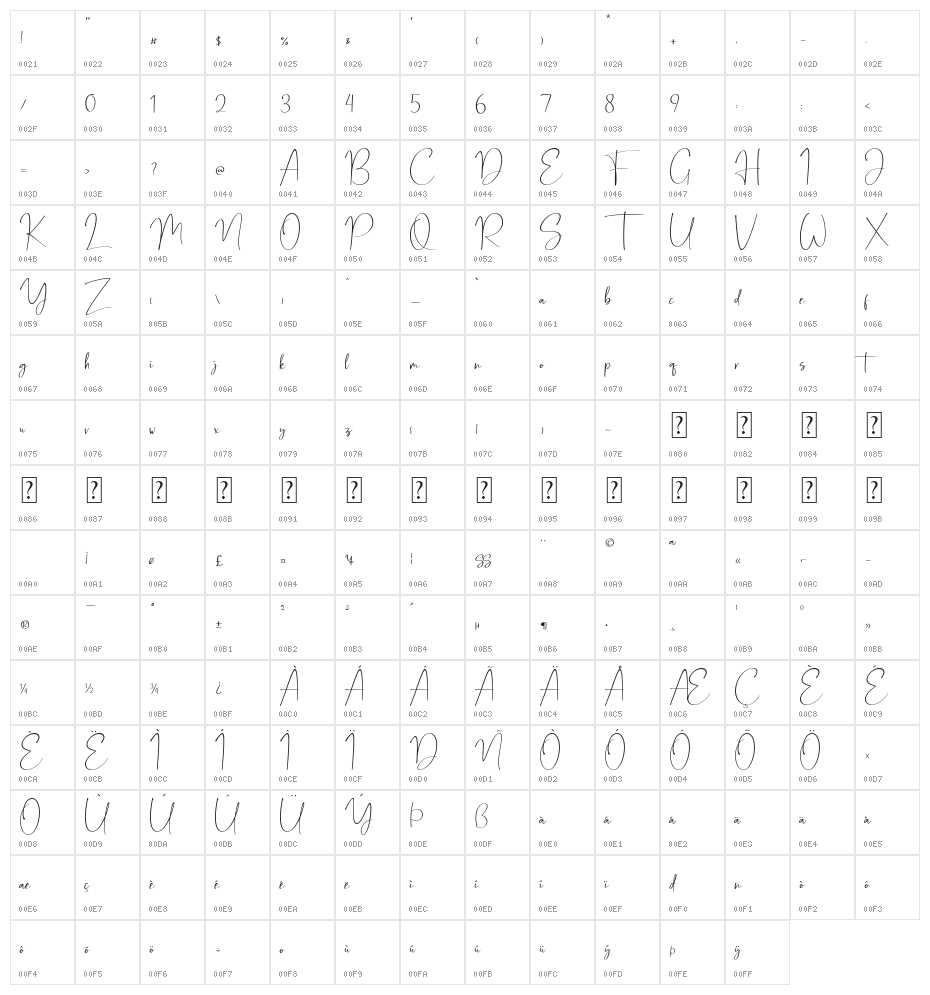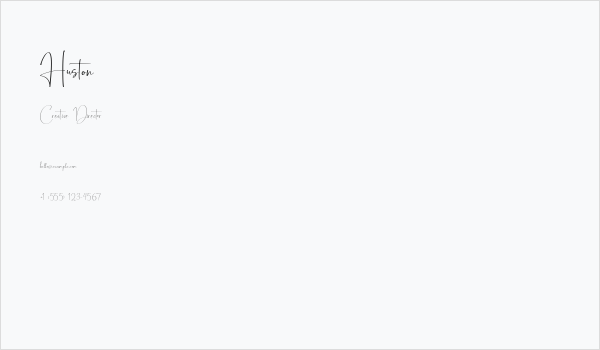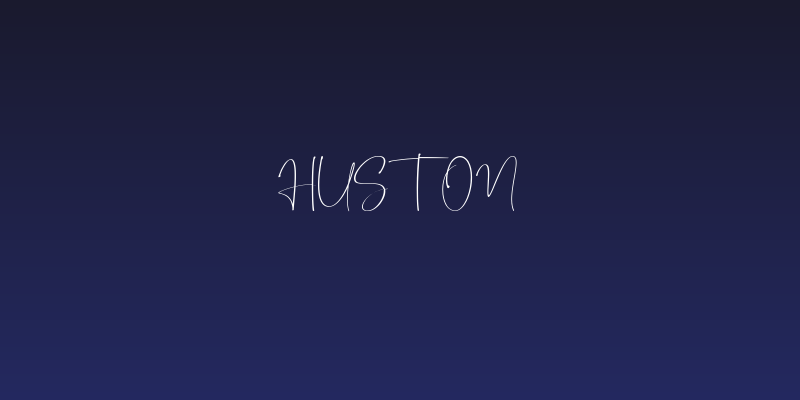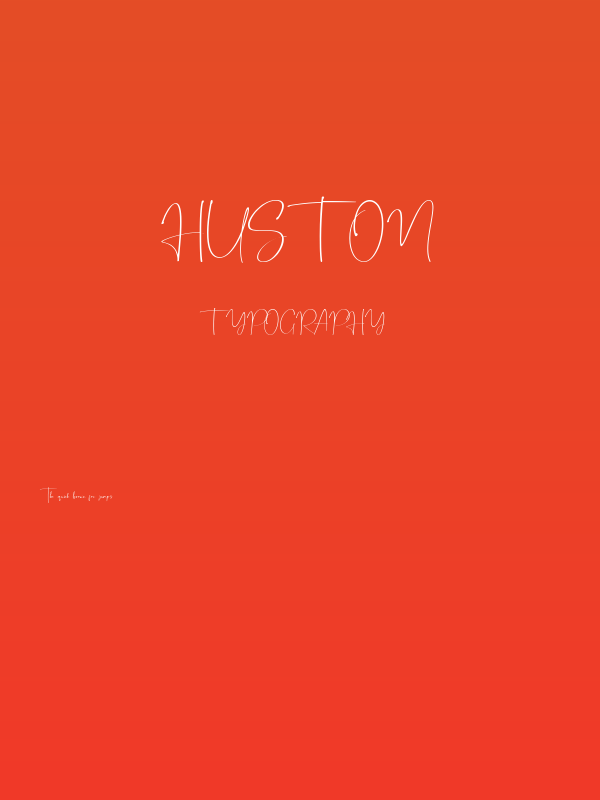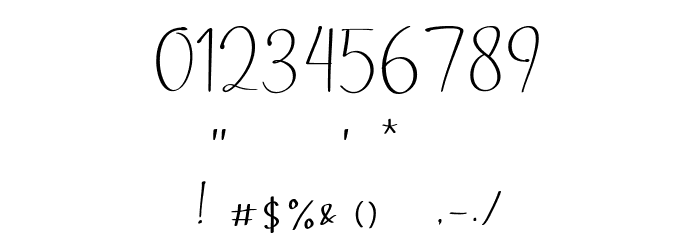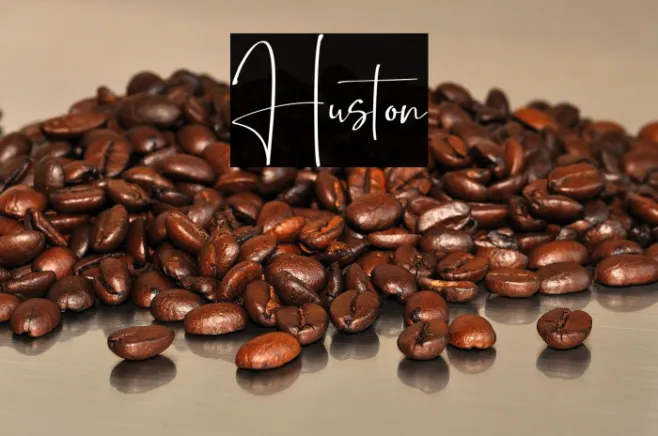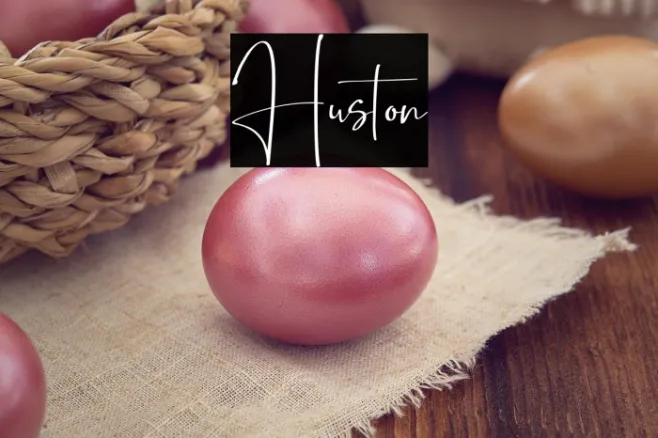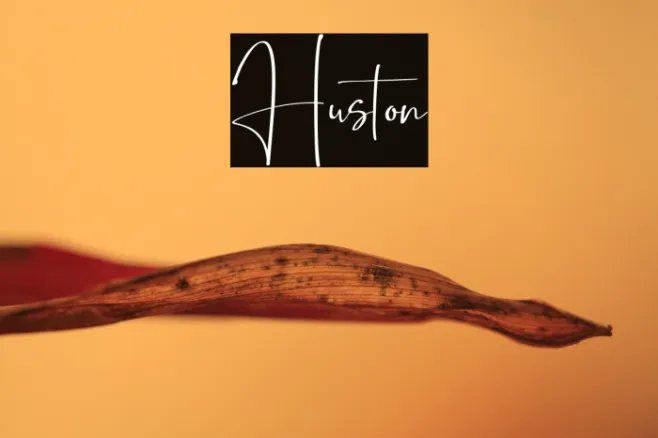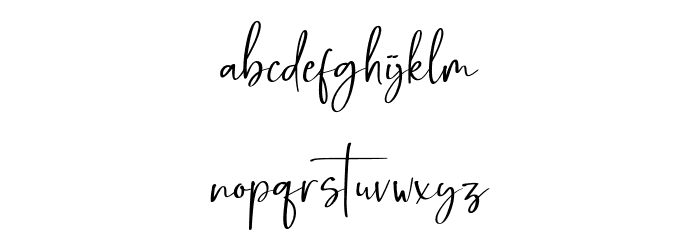
Huston Font
Huston Description
This font features a delicate and elegant handwritten style with a modern twist. The uppercase letters are tall and slender, with a slight slant that adds a touch of sophistication. The lowercase letters maintain a consistent flow, enhancing readability while preserving the artistic flair. Numbers are clear and distinct, matching the overall aesthetic. Special characters are thoughtfully designed to complement the letterforms, making this font versatile for various applications. The thin strokes and subtle curves give it a refined and airy appearance, suitable for projects that require a personal and stylish touch.
| Proposed Projects | Ideal for wedding invitations, personal branding, greeting cards, and elegant packaging designs. |